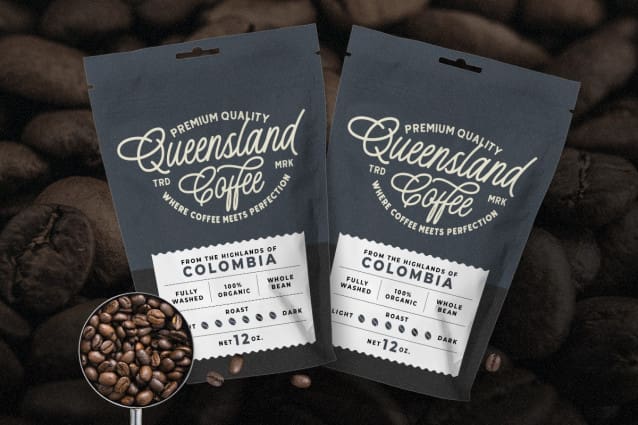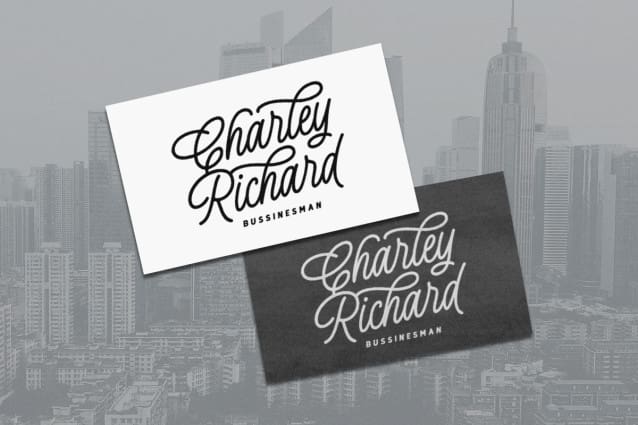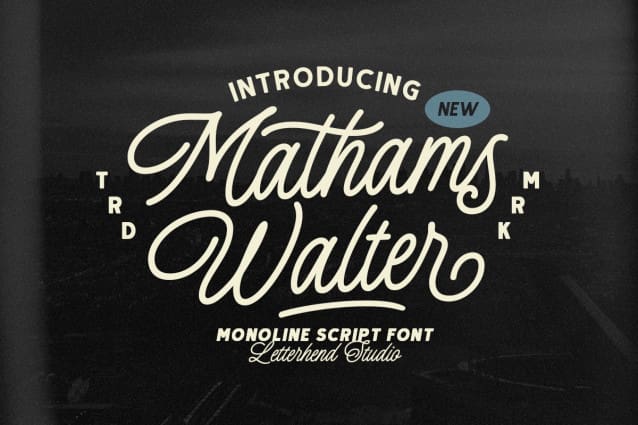
Mathams Walter Font
Mathams Walter Font is a casual monoline typeface with a charmingly rough version, adding an artistic touch to your designs. This versatile font is designed to capture attention and bring a touch of elegance to any project.